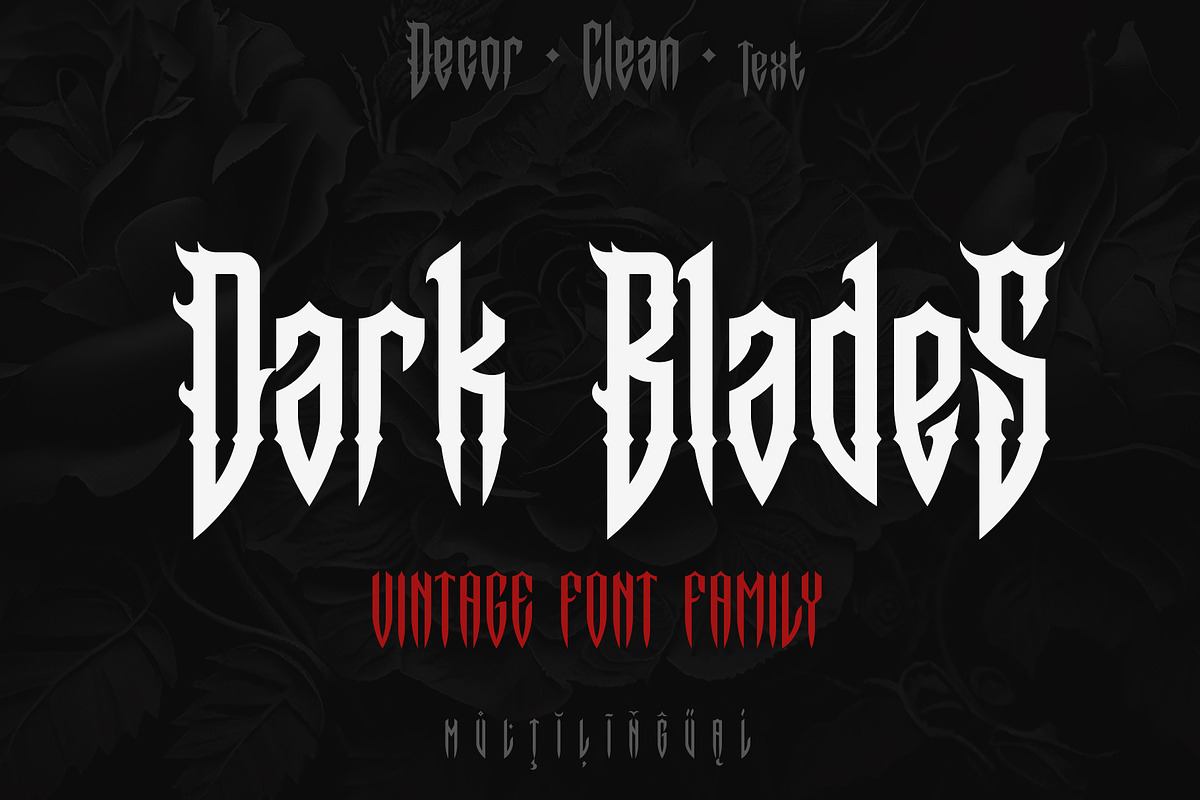
The DarkBlades Font Free Download is a bold and edgy typeface designed to bring a touch of mystery and intensity to your designs. With its sharp, angular letterforms and gothic style, this font is perfect for creating dark, dramatic branding, logos, posters, and creative projects. Whether you're working on a horror-themed event, a fantasy novel, or any design that requires a strong, mysterious look, DarkBlades adds a unique and powerful touch.
DarkBlades Font Free Download is ideal for designers looking to add a fierce, gothic edge to their work. Perfect for fantasy, horror, and high-impact designs, this font will make your projects stand out with its bold, unique appearance. Download it today and bring your designs to life with DarkBlades' powerful, dramatic style!